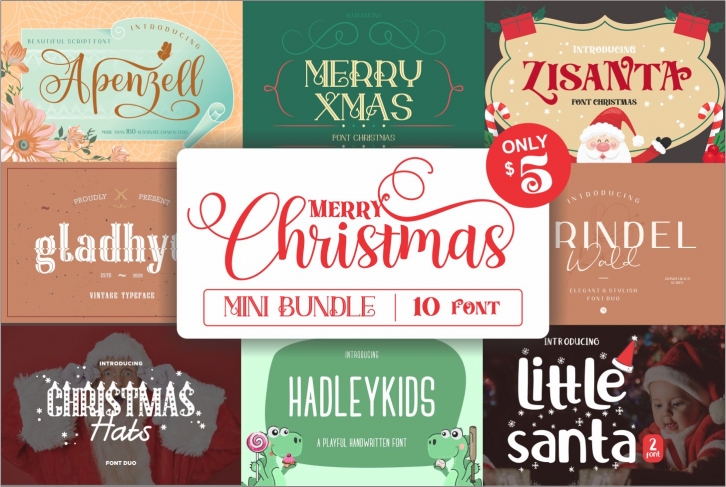
Mini Bundle for Merry Christmas is a beautiful font that was designed by mtype. It's a great choice for designers and creatives who need such a font. It was released on September 6, 2021 and the file size is 20.51 MB. Mini Bundle for Merry Christmas may give a more youthful, expressive and casual look to your project. It is a very beautiful, refined, elegant, and high-quality font.